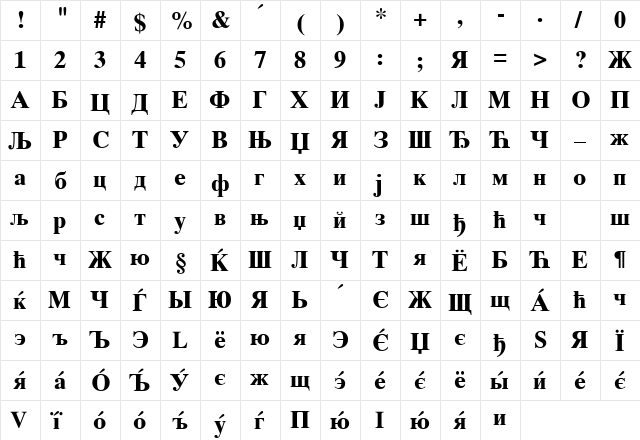
Cir Times Bold Font Preview
Cir Times Bold
Design Context for Cir Times Typeface
Cir Times offers clean, dependable letterforms without strong stylistic allegiance, making it a practical choice for designers who need flexibility. Its bold stroke weight gives it real presence on the page.